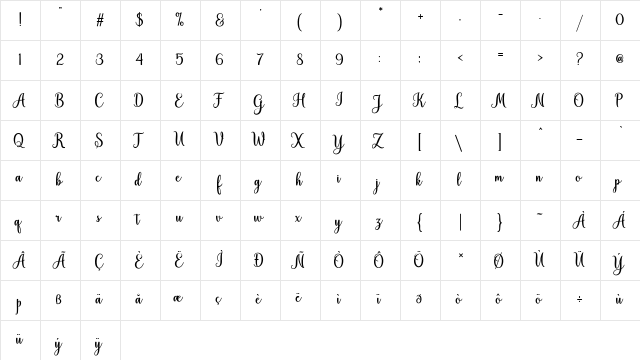
Hiyida Script Demo Regular
Design Context for Hiyida Script Demo Typeface
Hiyida Script Demo flows with the natural rhythm of handwritten lettering, making it ideal for designs that call for warmth and personal expression.
Font Pairing: Combine Hiyida Script Demo with a simple geometric sans for maximum contrast — the tension between flowing curves and clean structure is a classic typographic pairing.
Pro Tip: Pair Hiyida Script Demo with a clean sans-serif for supporting text. The contrast between fluid script and geometric structure creates an elegant typographic hierarchy.